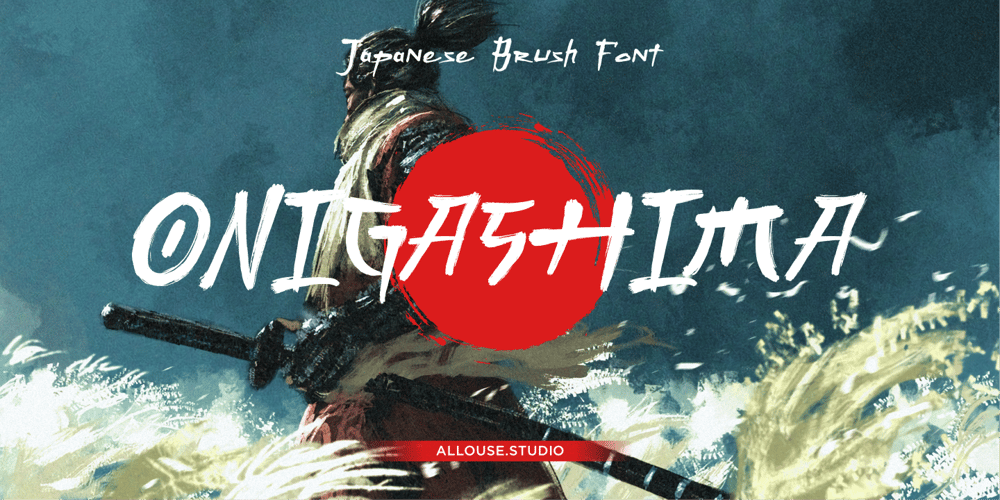
Onigashima
Onigashima font
Onigashima Font Family was designed by Fachrizal Yusuf and published by Allouse Studio. Onigashima contains 1 styles and family package options. Proudly Presenting, Onigashima a Japanese Brush Font.Onigashima come along with ton Stylistic Set and Multi-Lingual Support which will give you much choices to play around.We highly recommend using a program that supports OpenType features and Glyphs panels like many of Adobe apps and Corel Draw, so you can see and access all Glyph variations.Onigashima is perfect for any tittle, logo, product packaging, branding project, megazine, social media, wedding, or just used to express words above the background.Enjoy the font, feel free to comment or feedback, send me PM or email.